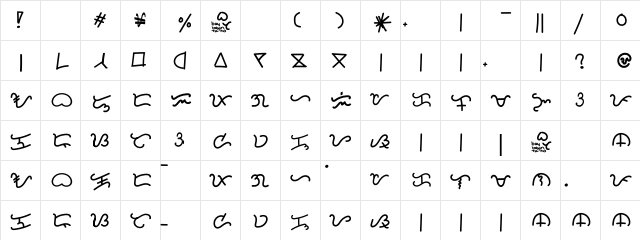
Baybayin Tayo Handwriting B30 Regular
| Foundry | Baybayin Tayo |
| Designer | Elijah Bayles |
Design Context for Baybayin Tayo Handwriting B30 Typeface
Baybayin Tayo Handwriting B30 brings a calligraphic fluidity to the page — its connecting strokes and expressive curves give it an unmistakably human quality.